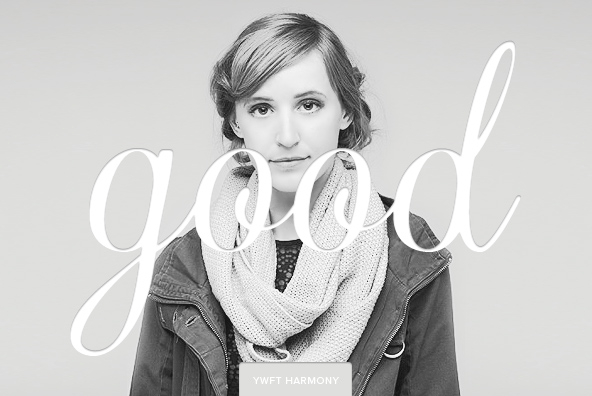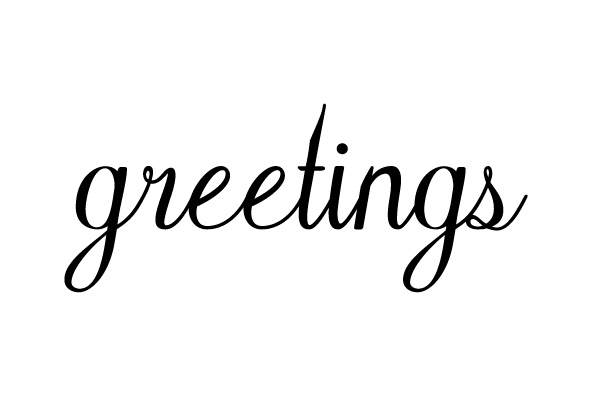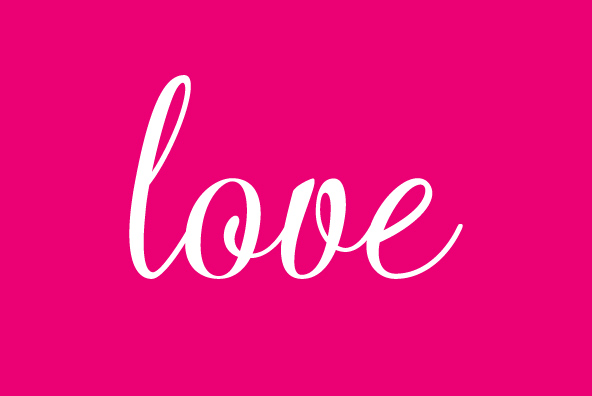
YWFT Harmony
Font Family by YouWorkForThem
YWFT Harmony is a playful script face that is unafraid to embrace its feminine side, and works well in holiday or greeting card settings, or any place that requires a playful-yet-formal announcement. All of the lowercase glyphs flow smoothly together when used at the default settings, and when used along with the uppercase glyphs, YWFT Harmony really adds a decorative and expressive spring to your sentences. YWFT Harmony was designed in 2008 by YouWorkForThem.